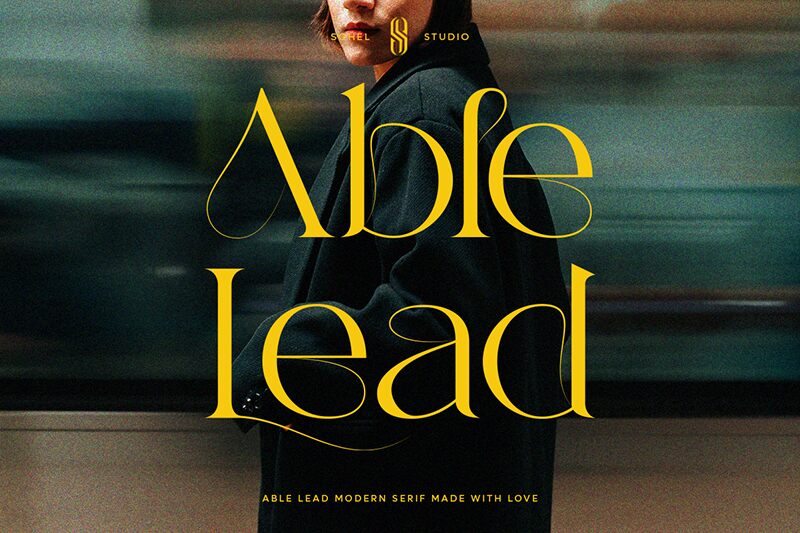
Able Lead font by Sohel Studio is a free sophisticated serif font characterized by elegant alternates, smooth curves, and high contrast. Its characters are legible, glamorous, and redefine what it means to be minimalist as they take the reader through an eye-opening experience with every glimpse.
The modern style of Able lead makes it fit book covers for novels or short stories, business cards for professionals or private businesses, branding designs that stand out in the market no matter the product advertised as well as posters and journals.
Able Lead Features:
Uppercase And Lowercase
Alternates
Numerals & Punctuation
Accented characters
Multilingual Support
Unicode PUA Encoded